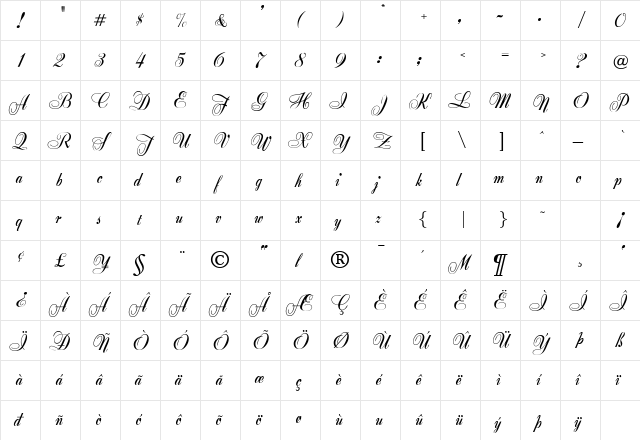
Zeeland Regular
Design Context for Zeeland Typeface
Zeeland is a composed and adaptable typeface that performs quietly and consistently across a wide range of design contexts.